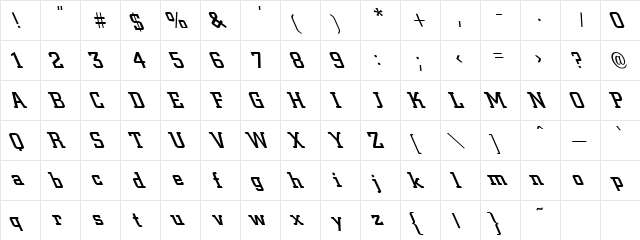
City-Medium Extreme Lefty Regular
Design Context for City-Medium Extreme Lefty Typeface
City-Medium Extreme Lefty takes a measured approach to typography — its balanced proportions and neutral character make it a reliable workhorse for both digital and print work.